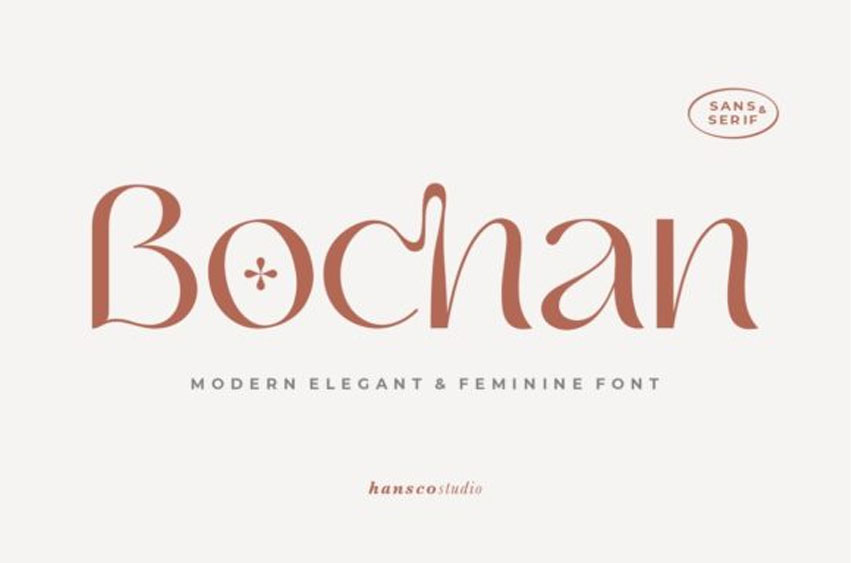
Bochan Font
Bochan Font is a lovely duo font (serif and sans serif). This font is PUA encoded which means you can access all of the glyphs and swashes with ease!
Bochan is the perfect choice for any formal or informal design you may have in mind.